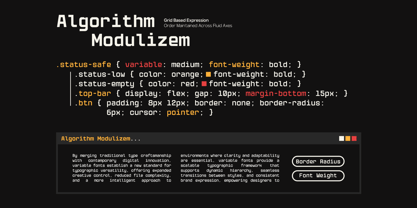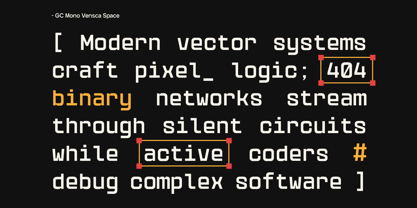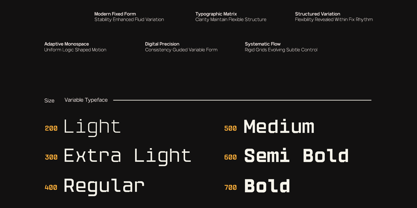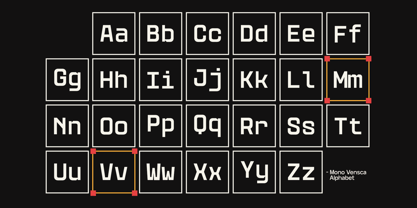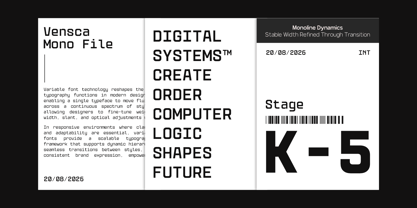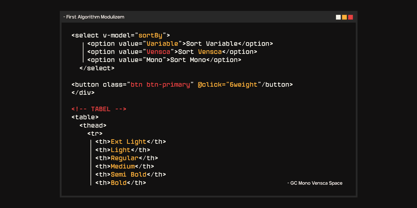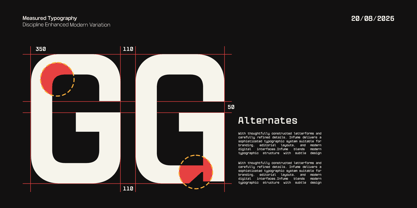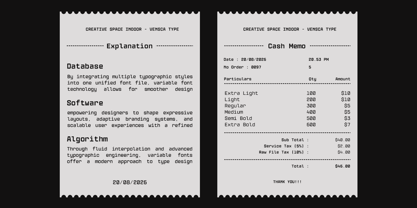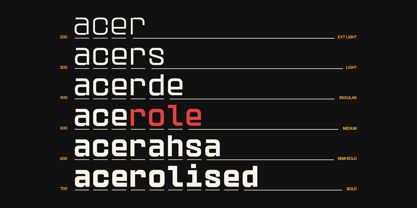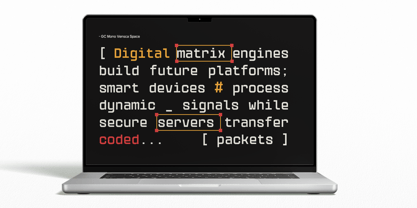
GC Vensca Mono
by Onyx Studio
The GC Vensca Mono Font Family was designed by Muhammad Hafiizh Solana and published by Onyx Studio. GC Vensca Mono contains 6 styles and family package options. More about this family
GC Vensca Mono – Modern Monospace is a contemporary monospaced typeface designed with clean structure and modern precision. Built on a consistent grid system and refined proportions, Vensca Mono delivers a clear, technical, and confident typographic voice suited for modern visual communication. With uniform character spacing, sharp detailing, and balanced construction, GC Vensca Mono is crafted to perform seamlessly across both digital and print media. Its structured monospace design makes it ideal for coding interfaces, tech branding, editorial layouts, data-driven visuals, and modern minimalist design projects—where clarity and alignment are essential. As a variable typeface,** GC Vensca Mono** offers flexible weight control, allowing designers to fine-tune hierarchy and adapt typography across multiple layouts and platforms with precision. Despite its technical foundation, the font maintains strong legibility and a clean visual rhythm, ensuring consistency without losing character. Whether used for structured interfaces, modern headlines, or grid-based compositions, GC Vensca Mono brings precision, clarity, and contemporary monospace aesthetics to your typography. Features: - Variable Font (Adjustable Weight Axis) - Monospaced Construction - Uppercase & Lowercase - Numbers & Punctuation - Clean Modern Detailing - Multilingual Support (170+ Languages) Bring modern precision, structured clarity, and monospace consistency to your design with GC Vensca Mono.